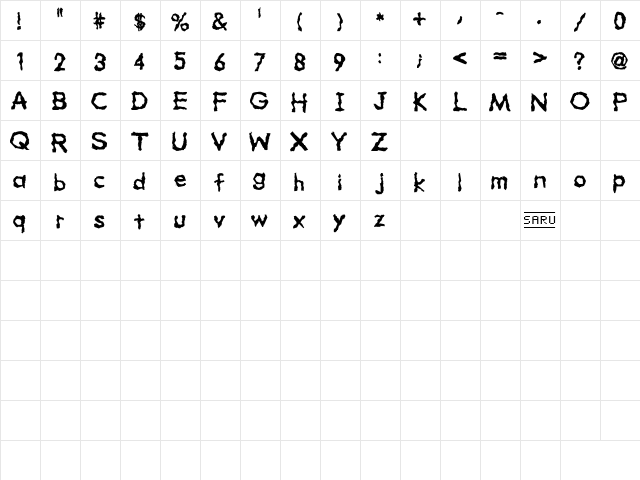
Drunker (sRB) Regular
Design Context for Drunker (sRB) Typeface
Drunker (sRB) is a composed and adaptable typeface that performs quietly and consistently across a wide range of design contexts.